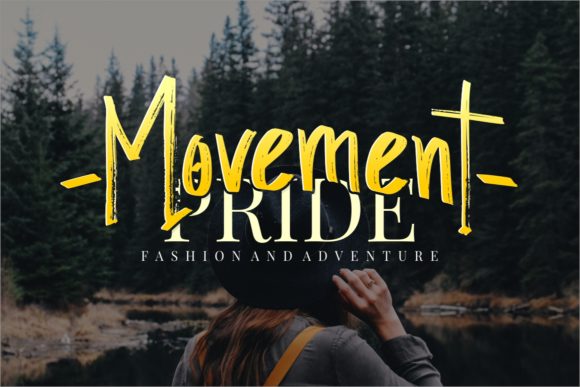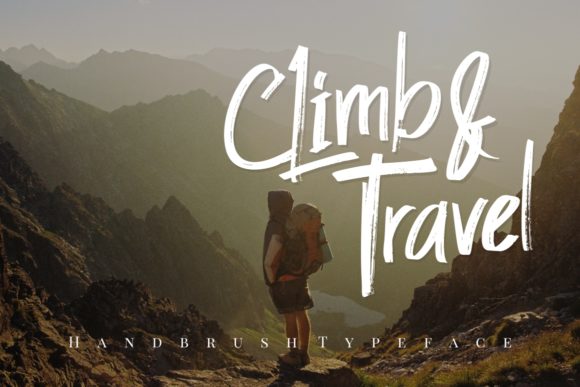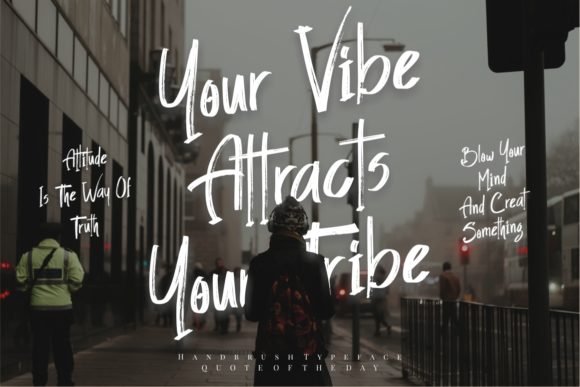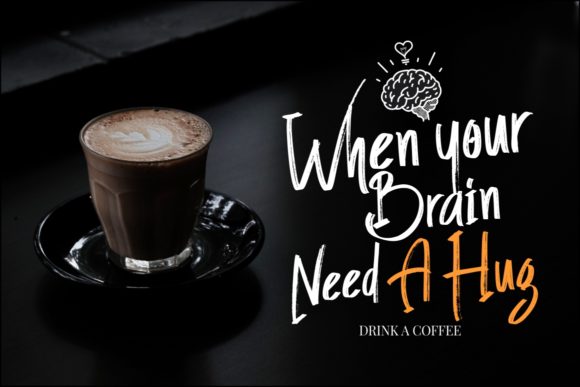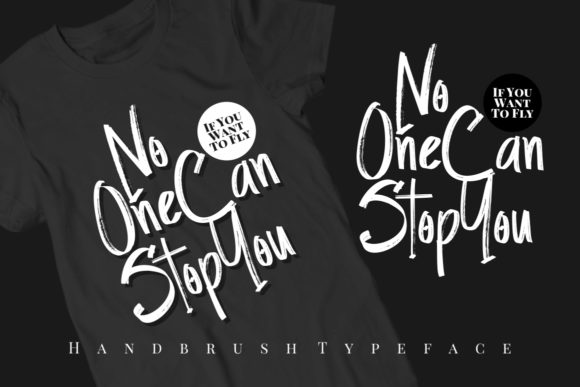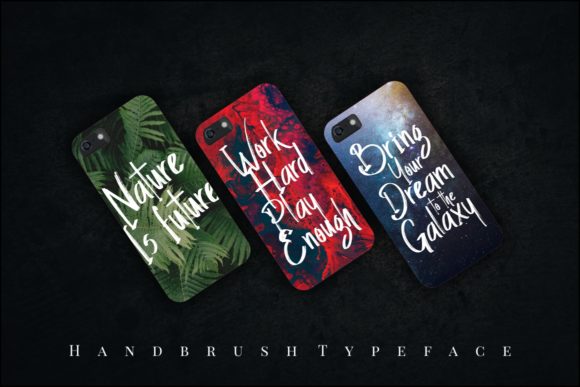
Introduction to Slatter Font
Have you ever been working on a creative project at midnight, surrounded by flickering candles and the eerie silence of a deserted room? The darkness outside seems to fuel your imagination, and the perfect design element suddenly pops into your mind. That’s what happened to us when we stumbled upon the Slatter Font, a dark and twisted brush font that adds a sinister feel to any design project.
As designers, we’re always on the lookout for high-quality design resources that can elevate our work and give it a unique touch. The Slatter Font is one such treasure, and we’re excited to share its features and benefits with you. Whether you’re working on a horror-themed project or simply want to add some edge to your design, this font is a must-have in your collection.
Key Features of Slatter Font
- Unique, elegant script design with a transparent background, perfect for adding a touch of sophistication to your work.
Honest Review: Slatter Font
As a designer, I’m always on the lookout for high-quality design resources that can elevate my creative projects. The Slatter Font caught my eye with its sleek and modern aesthetic, making it a great addition to any design stack.
- ✨ High-quality typography with precise letterforms and subtle flair.
- ✨ Transparent background option, perfect for overlaying on images or using as a text overlay.
- ✨ Suitable for a wide range of design projects, from logos to marketing materials.
- ⚠️ Not suitable for very large font sizes, as the letterforms may become distorted.
Overall, the Slatter Font is a solid choice for designers looking for a high-quality, modern font. While it may have some limitations, its benefits far outweigh its drawbacks. With its free download option and transparent background feature, it’s an excellent addition to any design resource library.
Tips for Getting the Most Out of Slatter Font
To get the most out of the Slatter Font, use it in conjunction with a transparent background to create a clean and minimalist design. You can also experiment with different font sizes, colors, and styles to create a unique visual identity.
The Slatter Font is commonly used in branding, typography, and creative projects that require a high-quality design resource. It’s also a great option for designers who need a versatile font that can be used in various contexts.